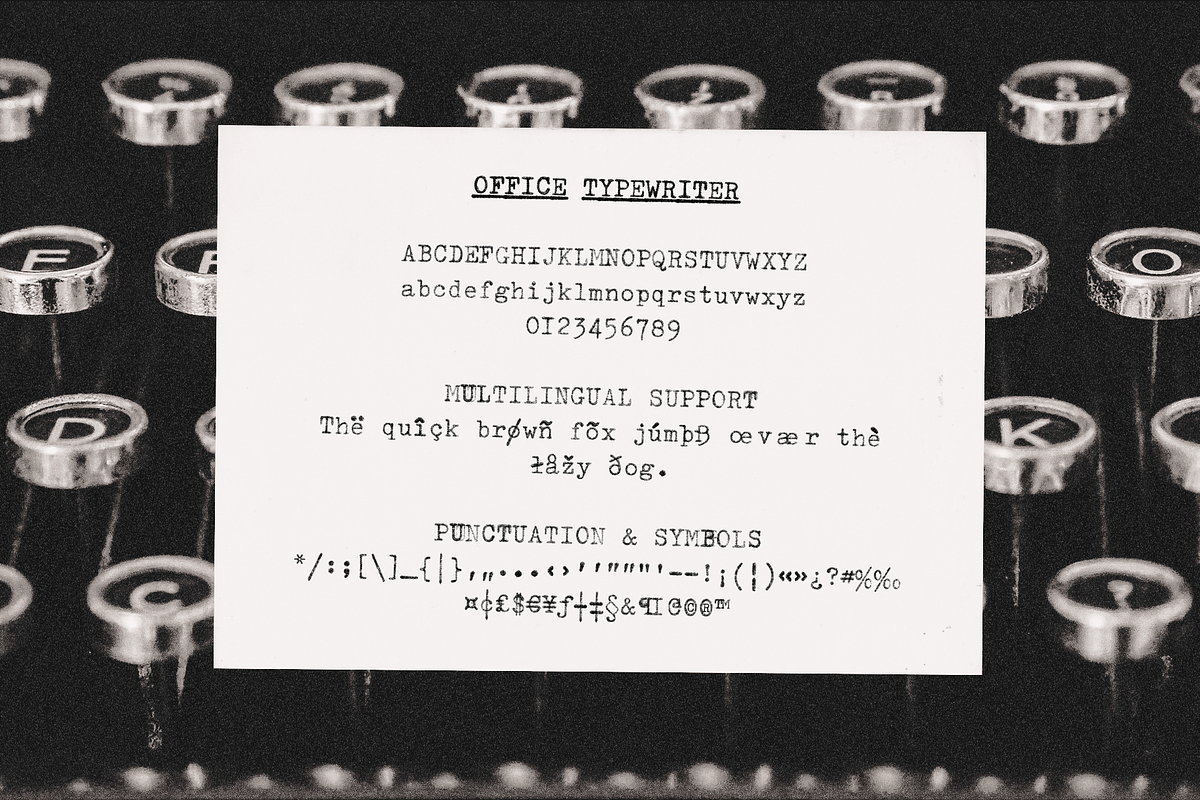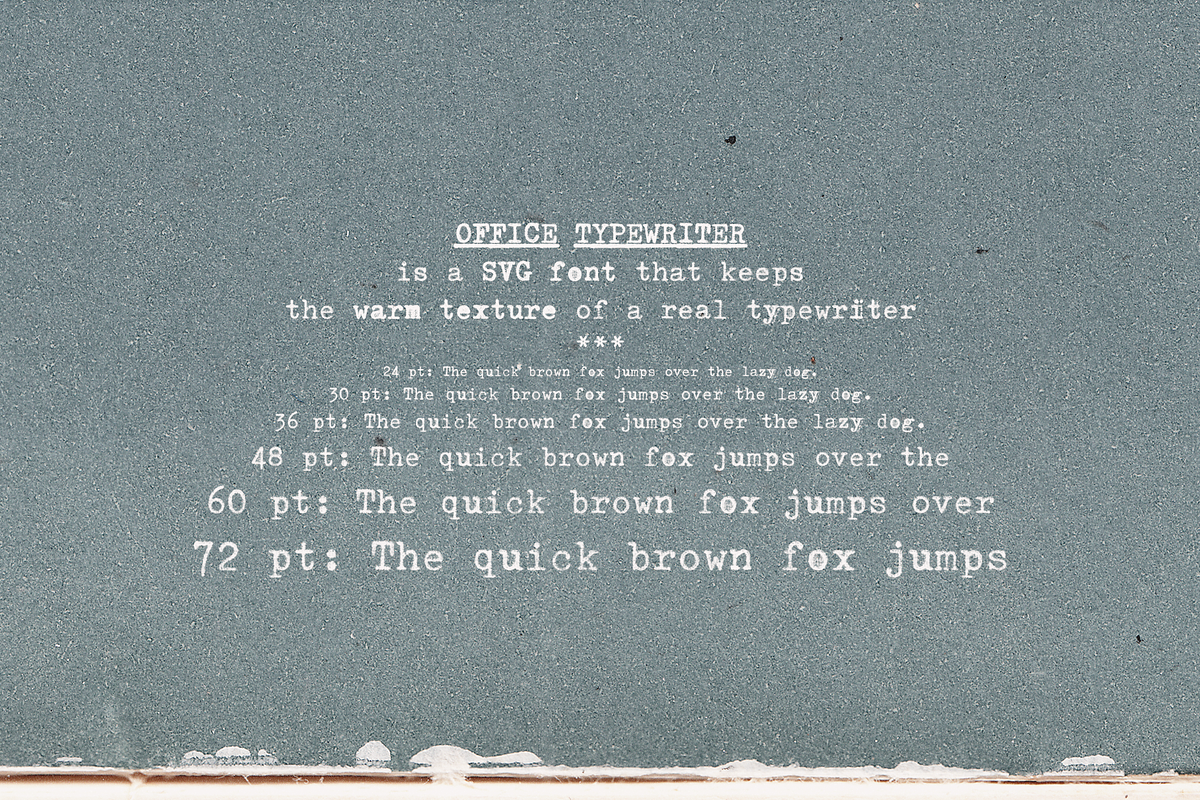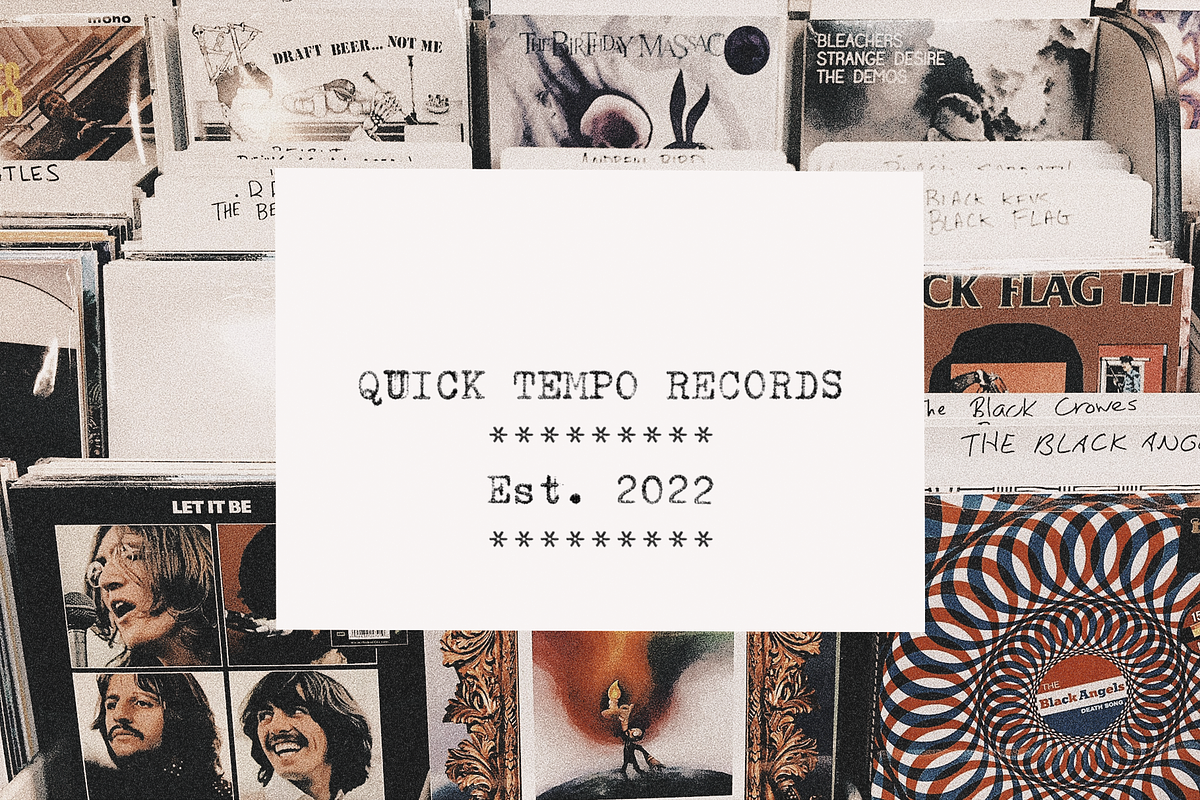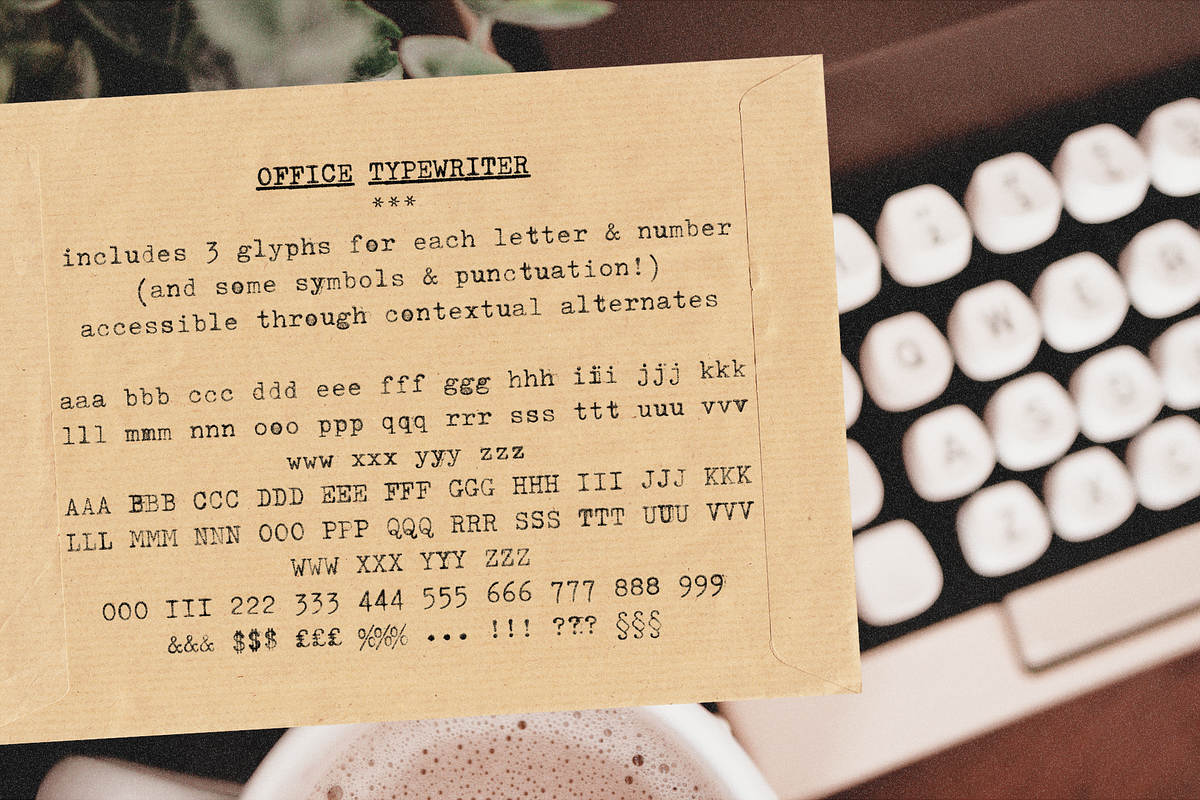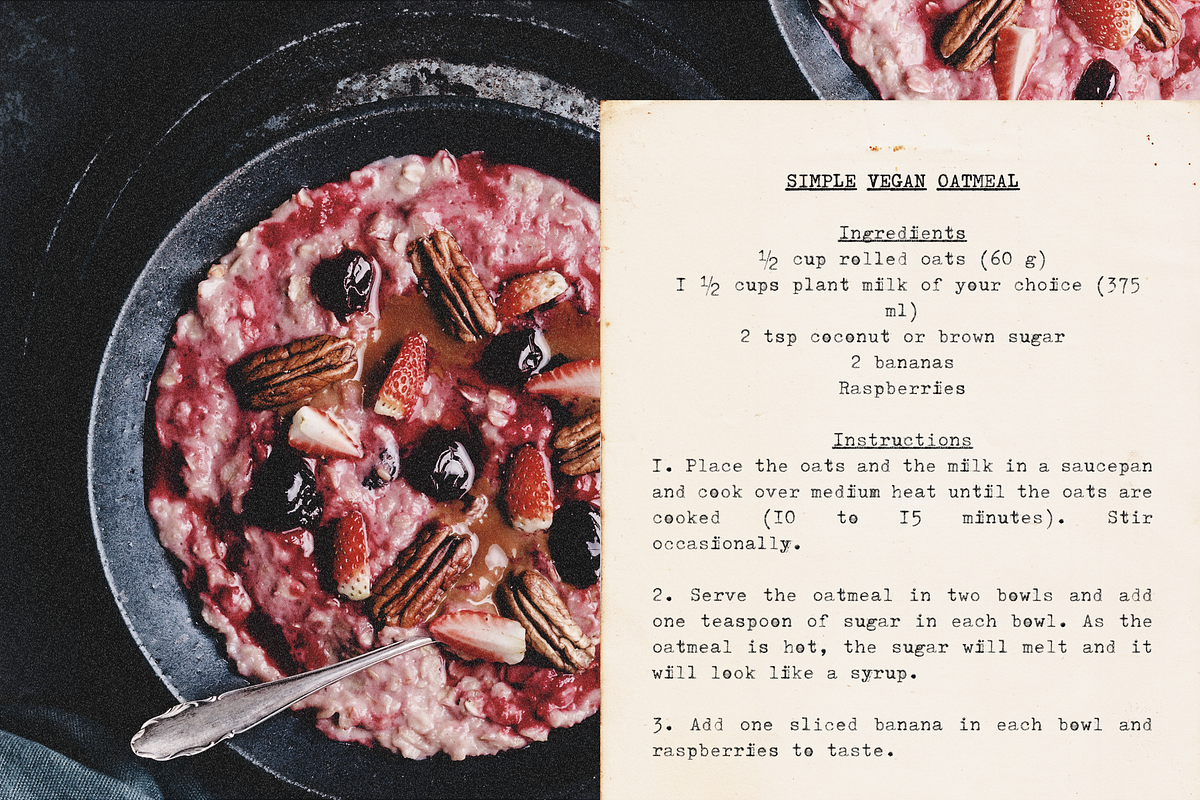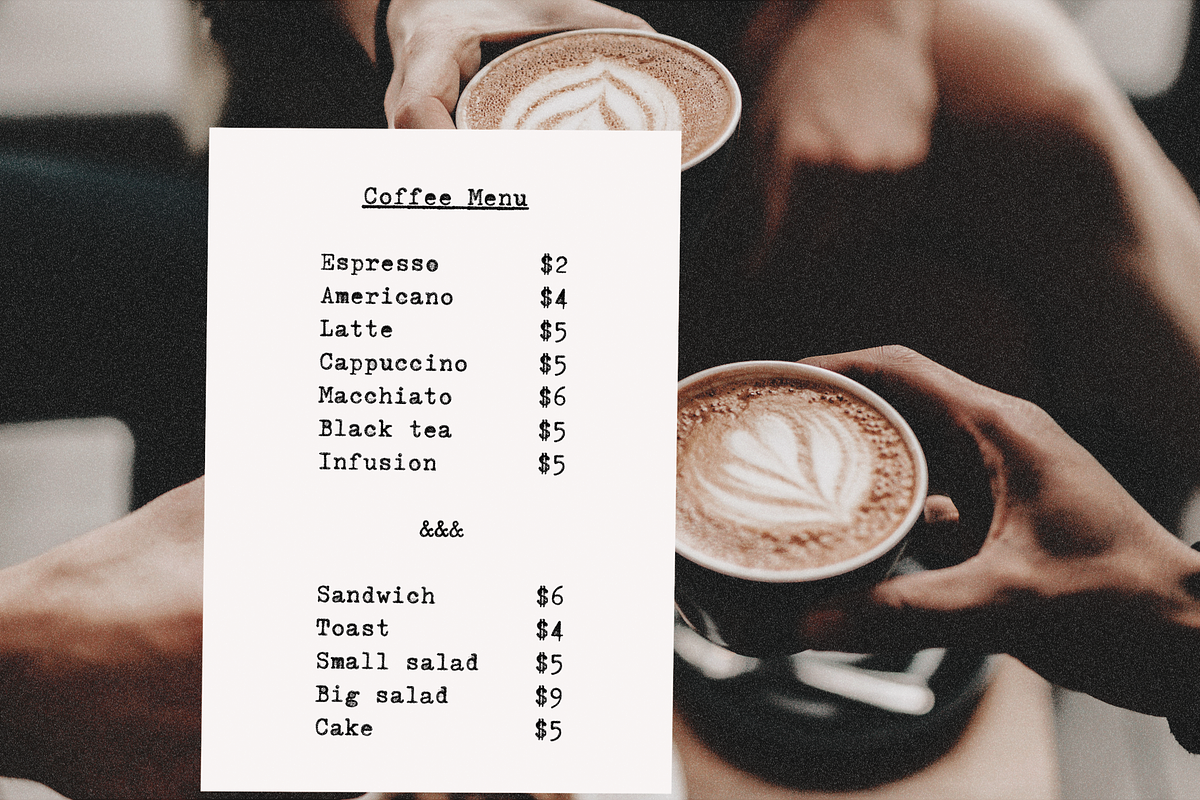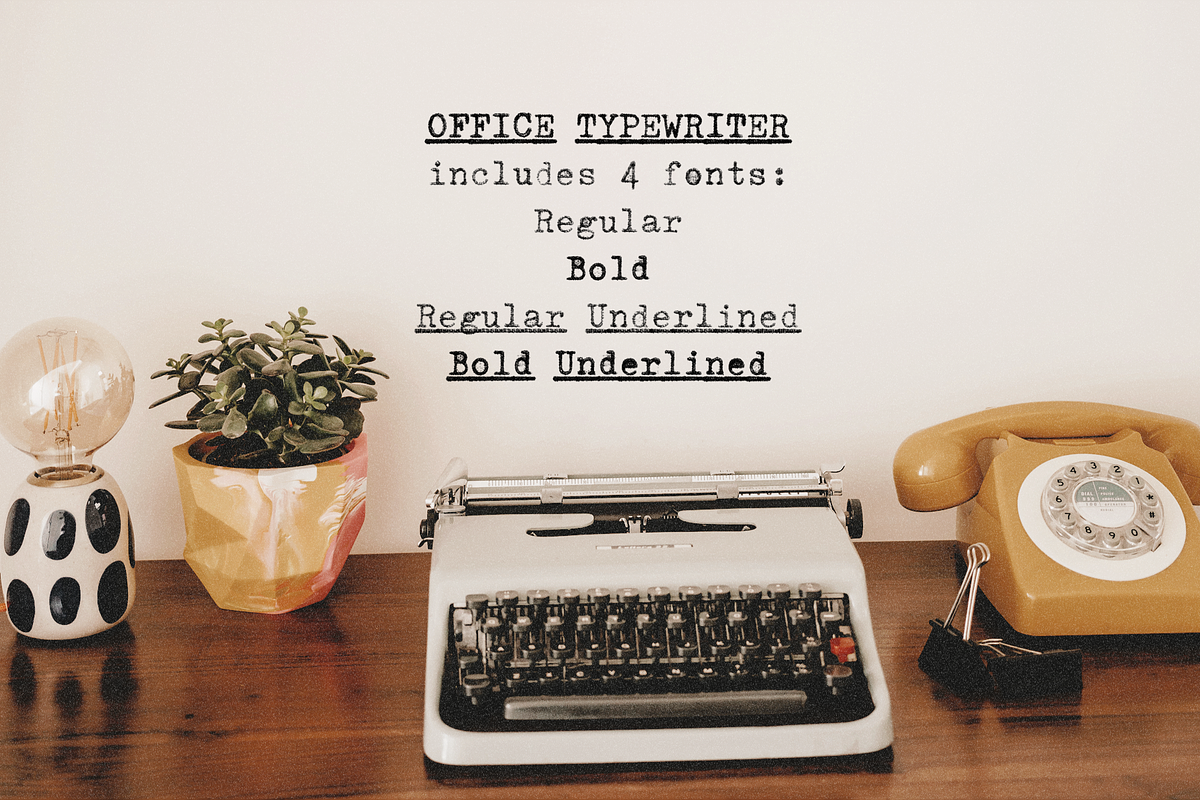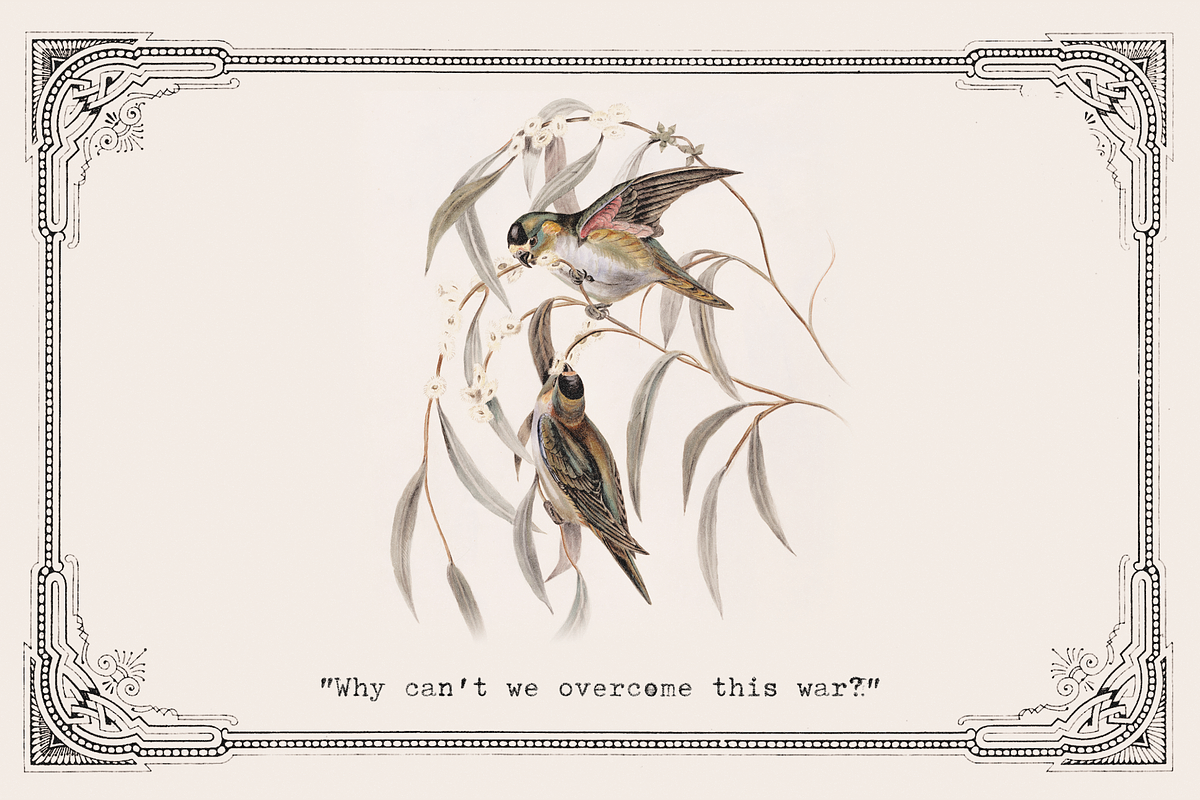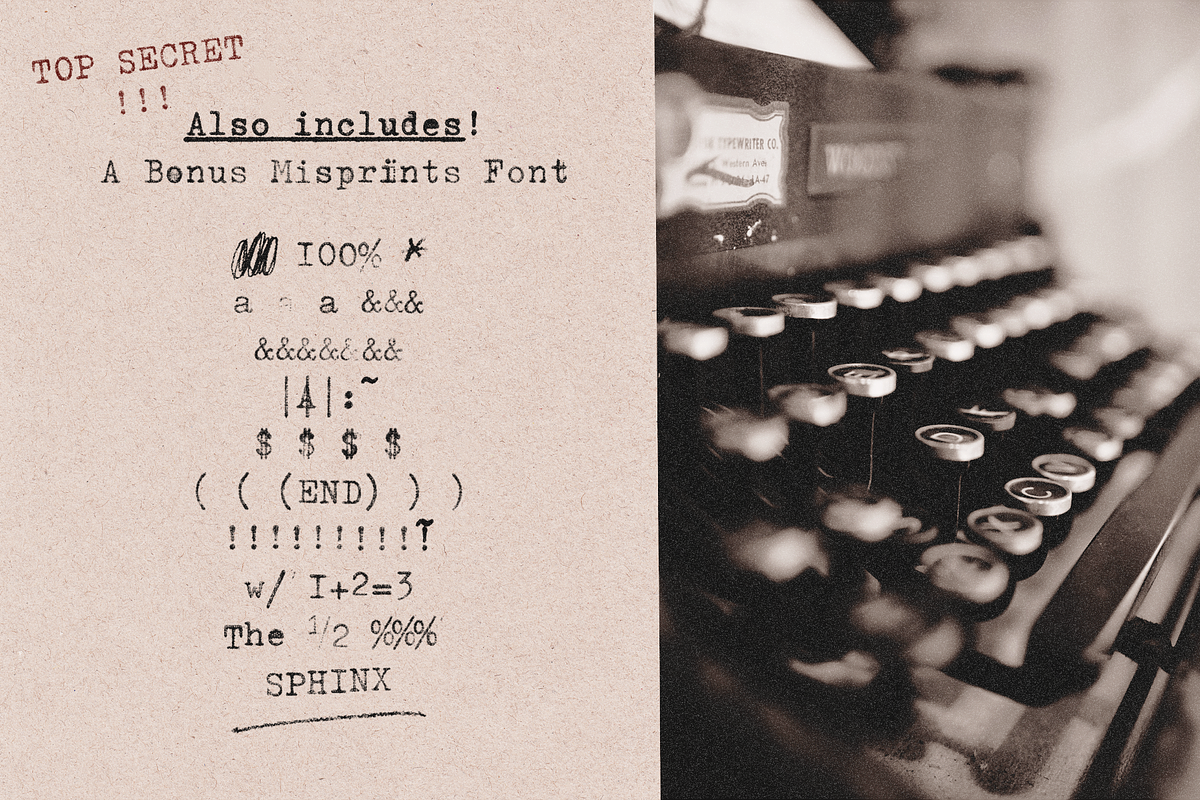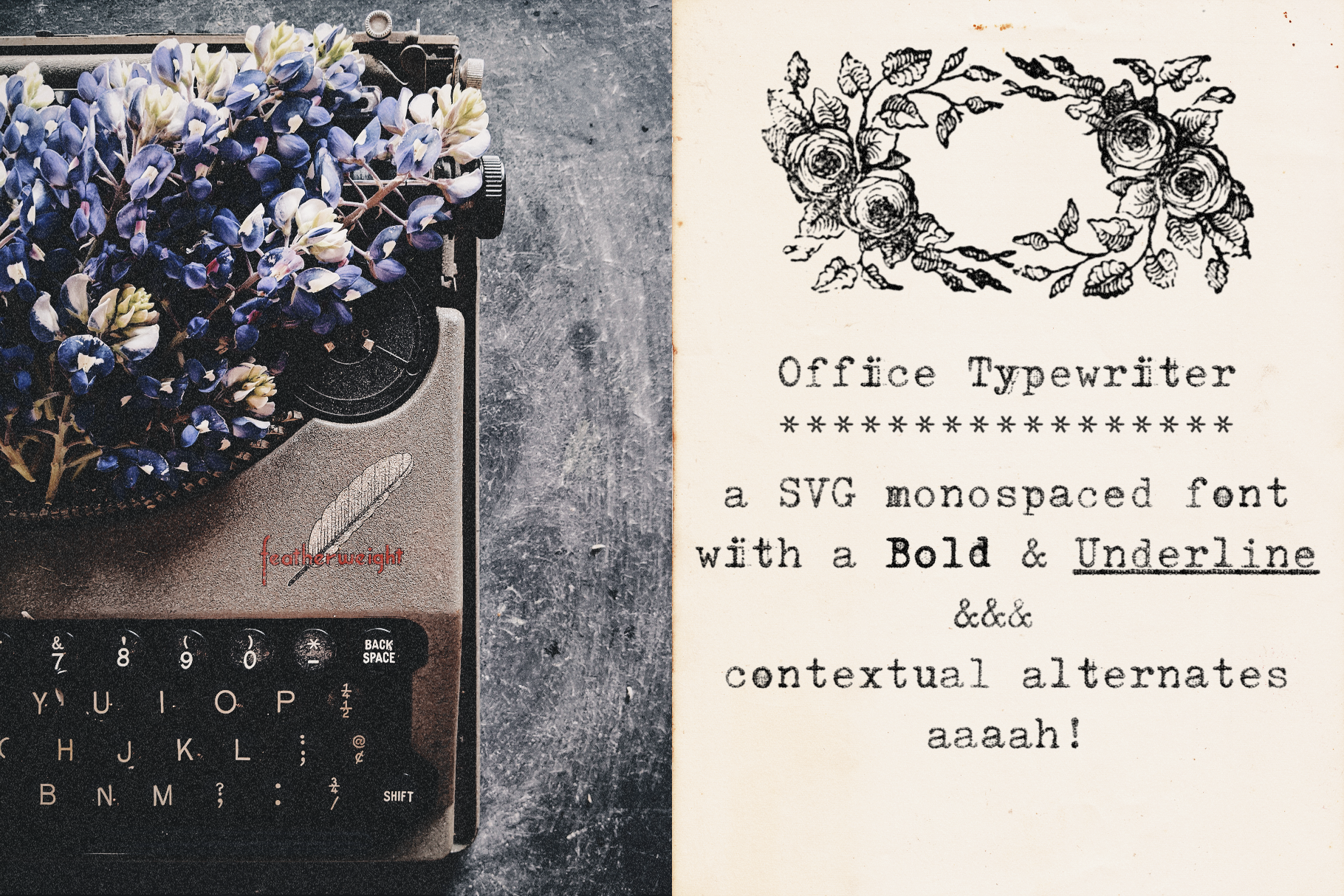
Office Typewriter SVG font
Office Typewriter SVG font is a monospaced typewriter font in two styles: Regular and Underlined, and two weights: Regular and Bold. It is a SVG font in which each glyph is an image (instead of a vector). This means the typewriter texture could be captured in an extremely realistic way. In addition, each glyph has 3 variations that appear "randomly" via contextual alternates. This makes it versatile and fun to use in modern and vintage designs alike. This font is also very legible at a wide range of sizes (although it looks better at small and medium sizes, as the image can become blurry at larger font sizes), and looks great in both long or short texts, in digital collages, branding and packaging, social media posts, logotypes, etc.
The Office Typewriter SVG font family includes:
- Office Typewriter font, in Regular and Bold weights
- Office Typewriter Underline, in Regular and Bold
- Office Typewriter Misprints, with assorted misprints, doodles, circles and underlines
No SVG support? No problem! Office Typewriter now includes vector versions of the fonts that keep their realistic texture.